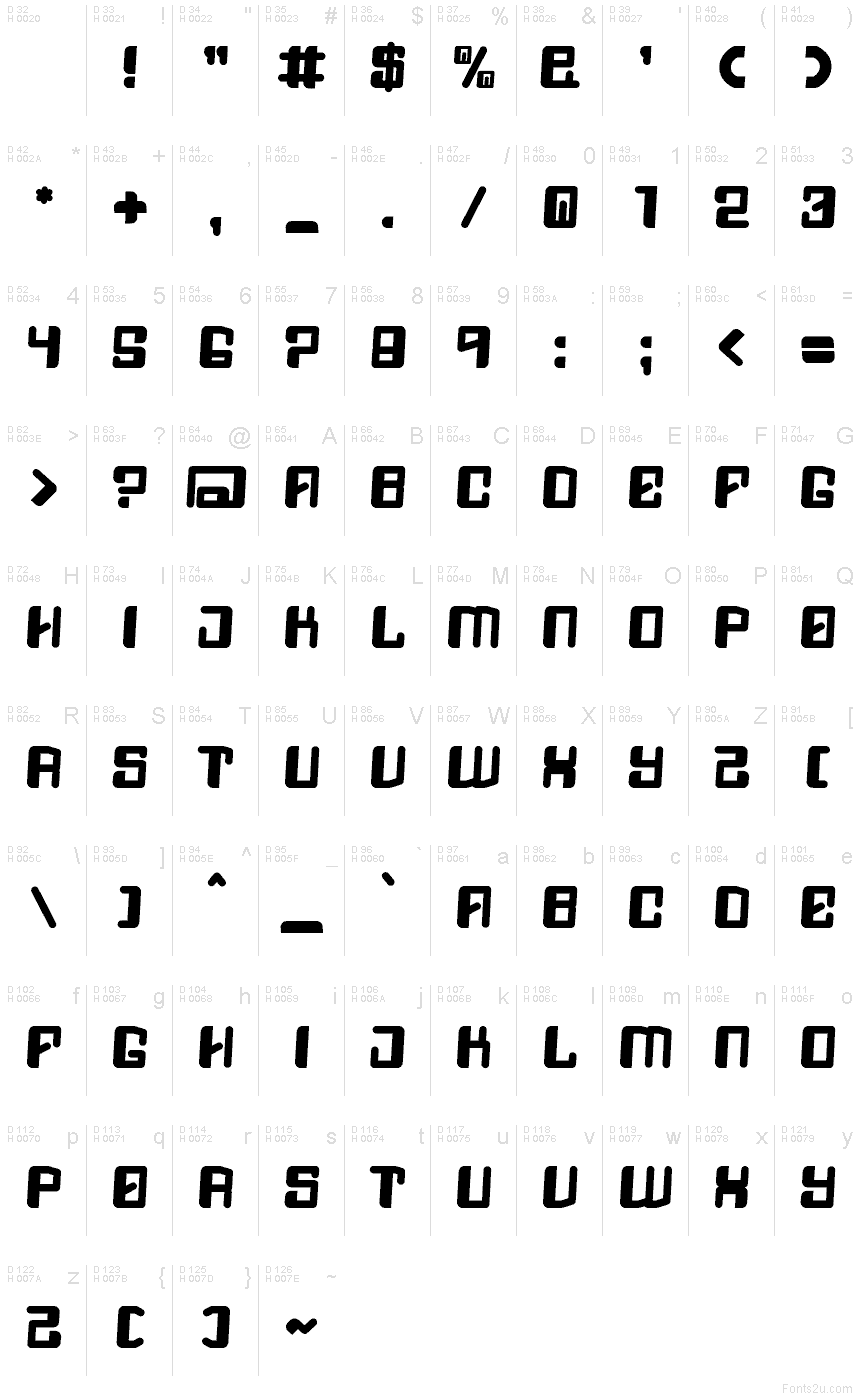
Fiexus font by Dhabee Studio is a free futuristic display typeface that feels like it was carved from a single block of matte metal. Its chunky, squared shapes and tightly packed curves give every word a bold, forward-thrusting energy, while the softened corners keep it from feeling cold or clinical. The result is a sci-fi look that’s more streetwear and neon signage than sterile spaceship console.
Using Fiexus, titles instantly snap into focus, making this free font a natural fit for gaming logos, esports branding, sci-fi book covers, tech event posters, YouTube thumbnails, and bold app splash screens. Set it large so its sculpted forms really land, and pair it with a simple geometric sans for body text to keep your layouts sharp and readable.